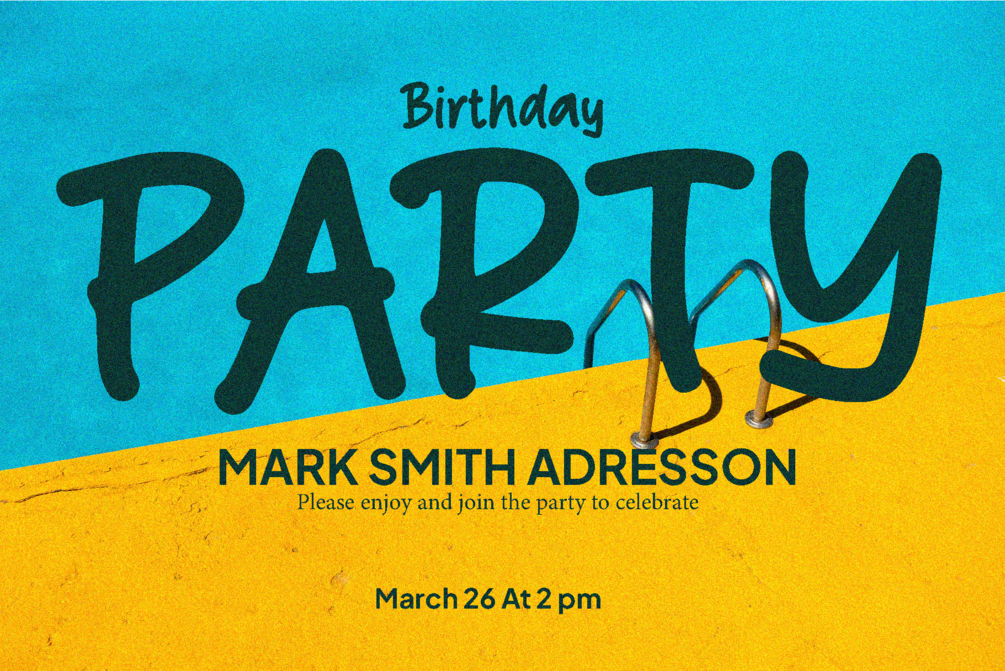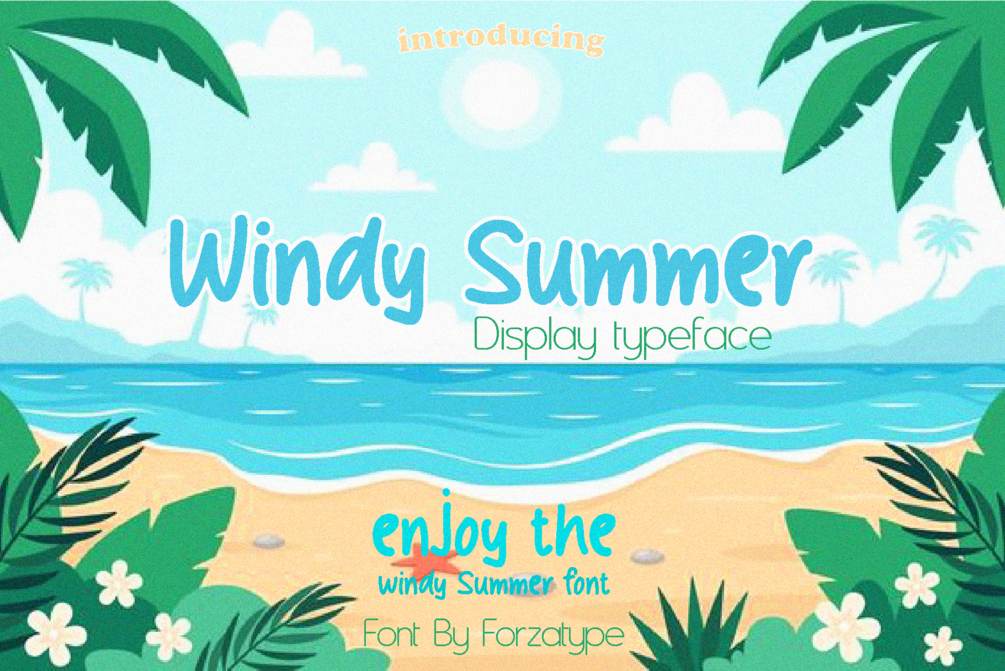
Windy Summer Font
windy summer font, the name of a letter with affection and love for a woman who accompanies you until the end of time, made for stickers, taglines, logos to identify pleasure in holidays with a cheerful, simple character that still looks luxurious, with a clean touch in each letter, creating joy in the atmosphere. in displays,Recommended fonts to use for birthday greeting cards, happy invitations and for cheerful themes this font perfect for greeting cards, magazine, branding, social media, print, packaging, and many more.